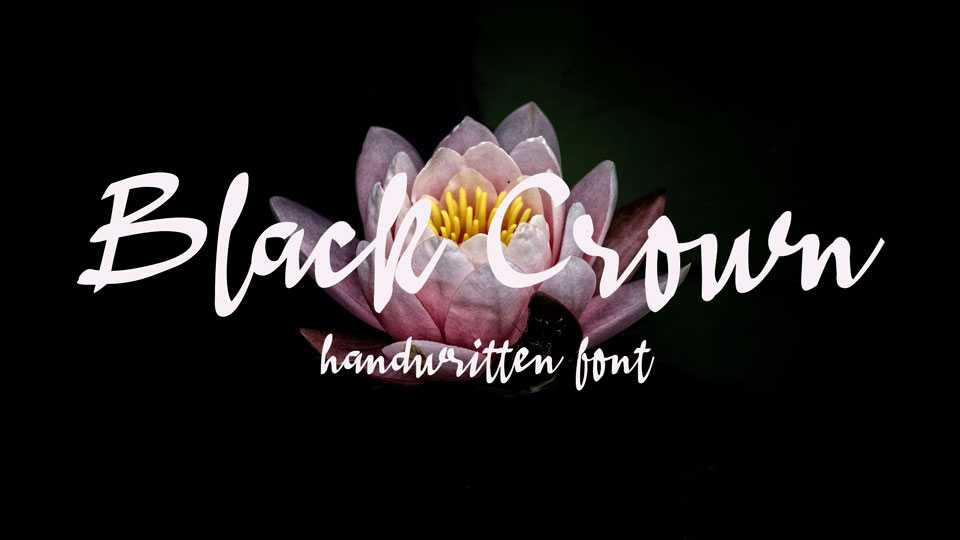
Download Black Crown font, a beautiful handwritten script with a free flow and bouncy baseline. With its casual style will be great for social media, cards, letters, invitations, prints and other works with a personal touch.
Designer: Wahyu Eka Prasetya